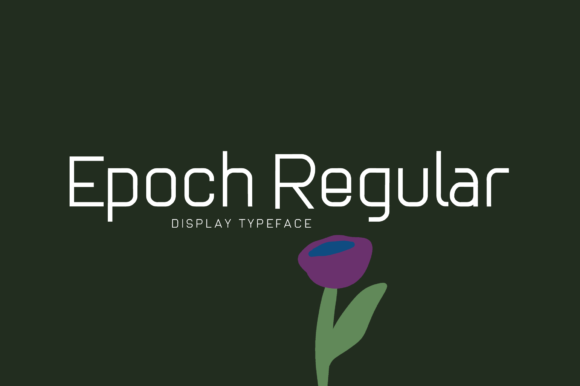
Unleashing Creativity: The Timeless Allure of Epoch Regular Font
Remember that moment when you stumbled upon the perfect font for your latest design project? The one that makes your creation stand out from the crowd and leaves a lasting impression on your audience? For designers, this moment is all too familiar, and it’s often triggered by discovering a font that embodies the essence of their vision.
Enter the Epoch Regular Font, a timeless display font designed to elevate your designs to new heights. This versatile typeface is perfect for a wide range of applications, from stationery and logos to print design, website headers, and even photo frames. With its unique charm, Epoch Regular Font offers designers a valuable asset that can help them create memorable and engaging experiences for their audience.
Epoch Regular Font Features
- Unique Characteristics: Epoch Regular Font features a modern and sleek design with clean lines, making it ideal for use in digital interfaces, signage, and corporate branding.
- Font Style: Epoch Regular Font is a sans-serif font with a neutral tone, making it suitable for use in a wide range of applications, from body text to headings.
Design Review: Epoch Regular Font
Overall, I’m quite impressed with Epoch Regular Font. It’s a versatile font that works well for a wide range of applications, from body text to headlines. ✨ The font’s clean lines and neutral tone make it a great choice for modern designs, and it’s particularly effective in digital media.
One of the standout features of Epoch Regular Font is its excellent legibility, even at small font sizes. ✨ It’s easy to read, and the font’s subtle details make it a pleasure to work with. Additionally, the font’s OpenType features allow for advanced typographic control, making it a great choice for designers who want to push the boundaries of typography.
- ⚠️ Limited expressive range: While Epoch Regular Font is great for everyday use, it may not be the best choice for projects that require a lot of flair or personality.
- ⚠️ Not ideal for extreme typography: The font’s clean lines and neutral tone make it less suitable for projects that require extreme typography, such as avant-garde or experimental designs.
Epoch Regular Font is a solid choice for designers who want a reliable, versatile font that works well in a wide range of applications. While it may not be the most exciting font, it’s a great choice for everyday use, and its excellent legibility and OpenType features make it a great addition to any designer’s toolkit.
The Epoch Regular Font is a versatile font that can be used for various applications, including:
- Headings and titles in designs and documents.
- Body text in publications, websites, and social media.
- Logo design and branding.
- Infographics and data visualizations.
Alternatives to Epoch Regular Font for Designers
Open Sans is a modern sans-serif font that is highly legible and suitable for digital interfaces. It is a great alternative to Epoch Regular Font for body text and headlines. Open Sans has a clean and friendly feel, making it perfect for websites, apps, and other digital platforms. Compared to Epoch Regular Font, Open Sans has a more contemporary look and feel, but both fonts share a similar level of readability.